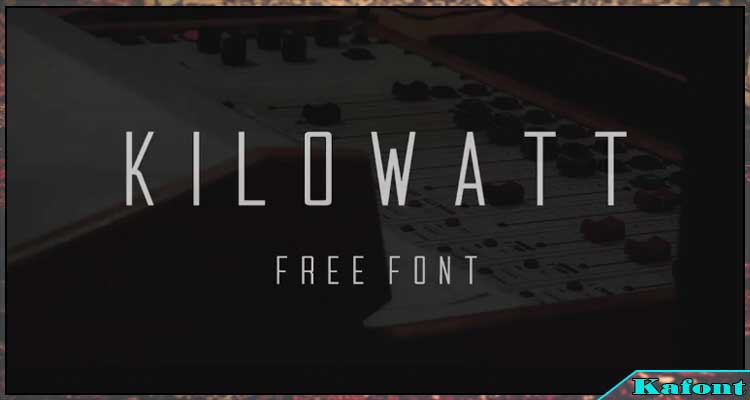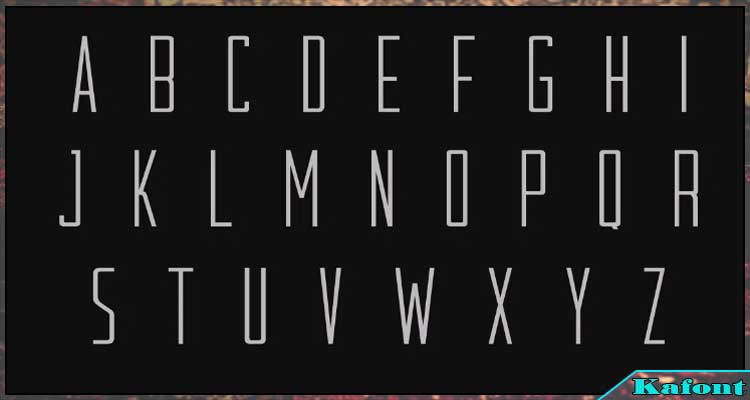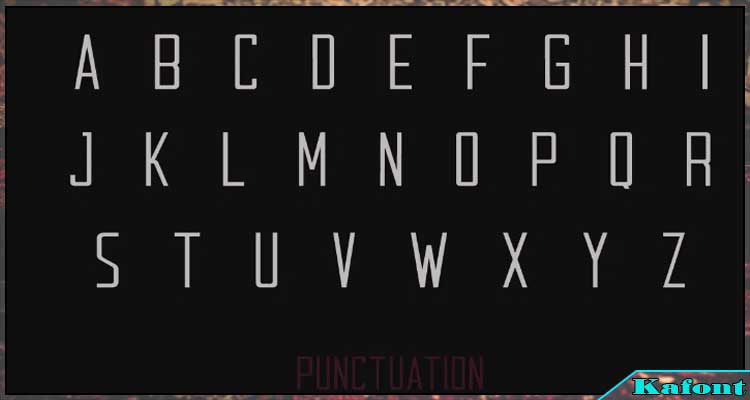
Kilowatt Sans Serif Font Free is a nice all-caps typeface for multiple projects. The font comes with slim lines and several rounded corners.
Kilowatt Font
Sans-serif fonts are diverse and kind of ideal for lots of designs. The font above is one of the best sans-serif typefaces that you should try on your works. It is best for display purposes due to its clear look. Although the lines are slim and the corners are rounded a bit, the font is still easy to read. You are suggested to add the font to some design areas such as:
- Title
- Poster
- Logo
- Badge
- Advertising
- And so forth
Distinctive Features
One of the most striking features of the font is its bold and angular aesthetic. With its sharp edges, clean lines, and minimalist design, the font exudes a sense of strength and power that commands attention. Each glyph radiates a sense of energy and motion, as if propelled by the force of technological advancement. Whether used for headlines, logos, or digital interfaces, the font adds a touch of dynamism and sophistication to any project.